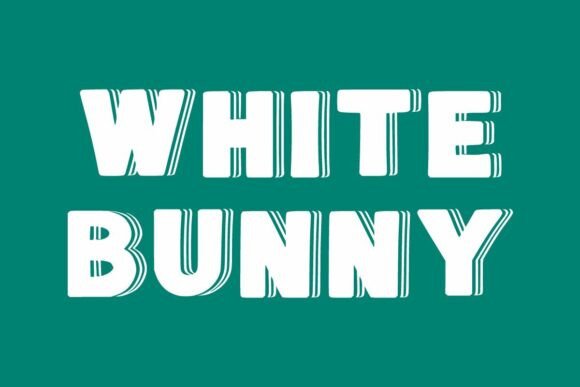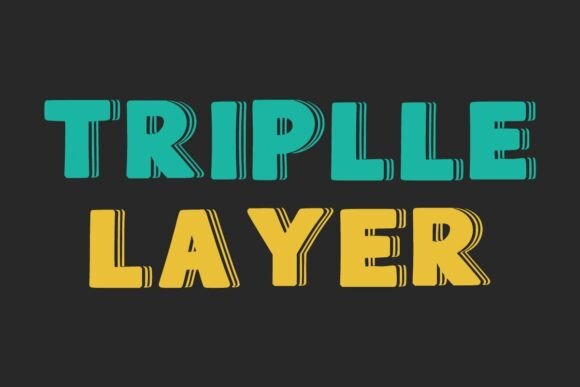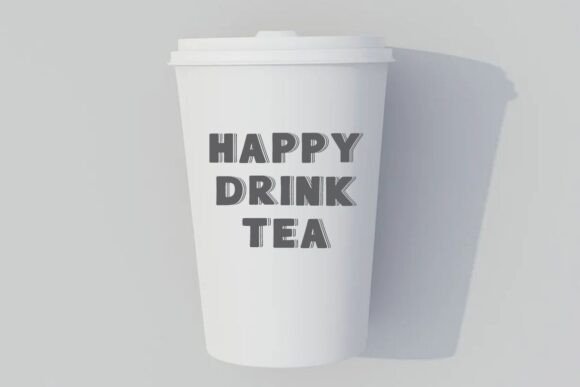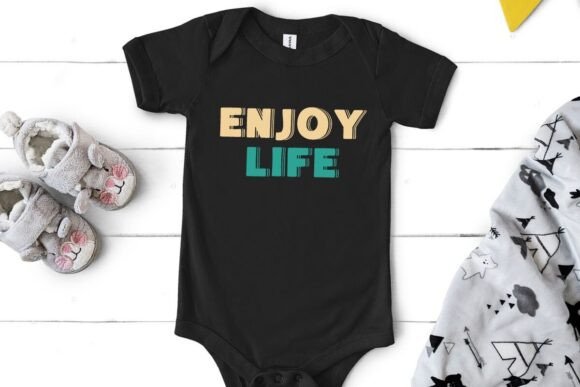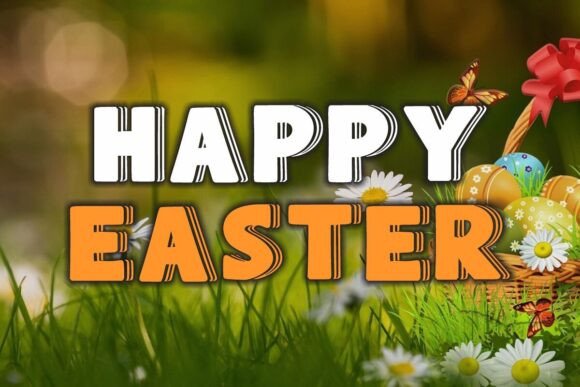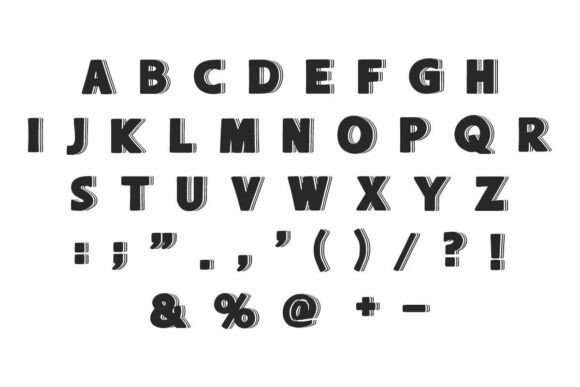
Introduction to Hoki Dog Font
Have you ever been working on a creative project, pouring your heart and soul into it, only to be stopped by the perfect font? That moment when everything falls into place, and your design goes from good to great? That’s exactly what the Hoki Dog Font is all about – bringing a smile to your face and a touch of playfulness to your work.
As a designer, you know how hard it can be to find the perfect font for your project. That’s why we’re excited to introduce you to the Hoki Dog Font, a free download that’s sure to become your new go-to design resource. With its bold, childish, and easy-to-read style, this font is perfect for anything from digital designs to greeting cards.
Whether you’re a seasoned designer or just starting out, the Hoki Dog Font is a valuable addition to your design toolbox. Its high-quality, transparent background makes it easy to use, and its playful vibe is guaranteed to bring a smile to your face and your clients’ faces too.
Key Features of Hoki Dog Font
- Unique, hand-drawn design with a playful and creative feel, making it perfect for various design projects.
- Includes a wide range of characters, including uppercase and lowercase letters, numbers, and special symbols, making it suitable for various creative projects.
- Perfect for designers working on children’s books, greeting cards, logos, and other creative projects that require a fun and playful touch.
Honest Review: Hoki Dog Font
I recently stumbled upon the Hoki Dog Font, and I must say it’s been a fun addition to my design resource library. This quirky font is perfect for creative projects that need a playful touch.
- The Hoki Dog Font is incredibly versatile and can be used for a wide range of applications, from logos to headings.
- The high quality of the font ensures that it will look great even on a transparent background.
- The font’s unique design makes it stand out from more traditional fonts, adding a touch of personality to any project.
- The font may not be suitable for projects that require a more formal or professional tone.
- The font’s quirky design may not appeal to all designers or clients.
Overall, I’m impressed with the Hoki Dog Font and would recommend it to designers looking for a fun and creative design resource. While it may not be suitable for all projects, it’s a great addition to any designer’s library.
Hoki Dog Font
The Hoki Dog Font is a free download design resource ideal for creative projects requiring a unique and playful touch. With its transparent background, this high-quality font is perfect for adding a personal touch to your designs.
Tips for Getting the Most Out of Hoki Dog Font
For optimal results, use Hoki Dog Font in combination with bold, bright colors to create eye-catching designs. Experiment with different font sizes and styles to add depth and interest to your projects.
Hoki Dog Font is perfect for creative projects, including:
Children’s party invitations
Food and drink labels
Wedding stationery
Social media graphics